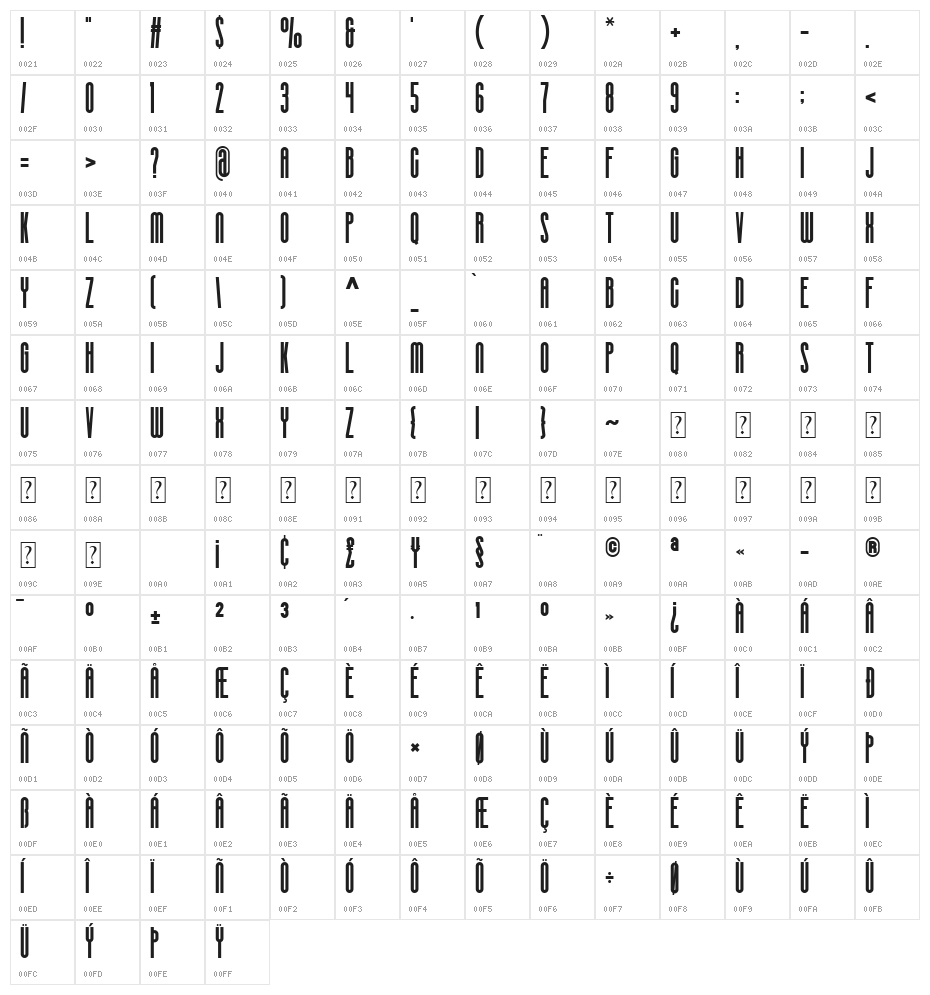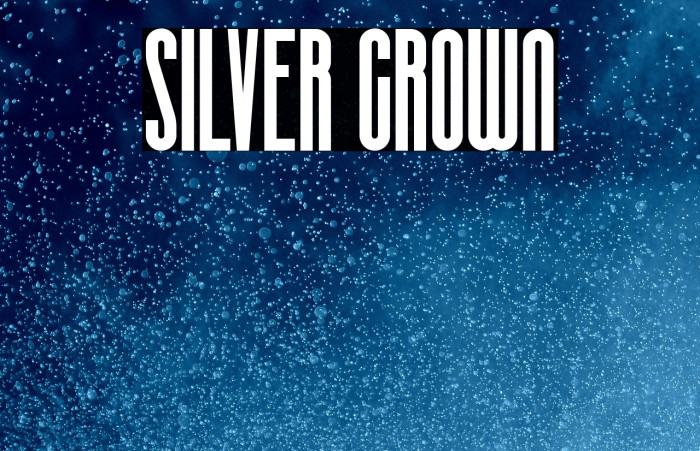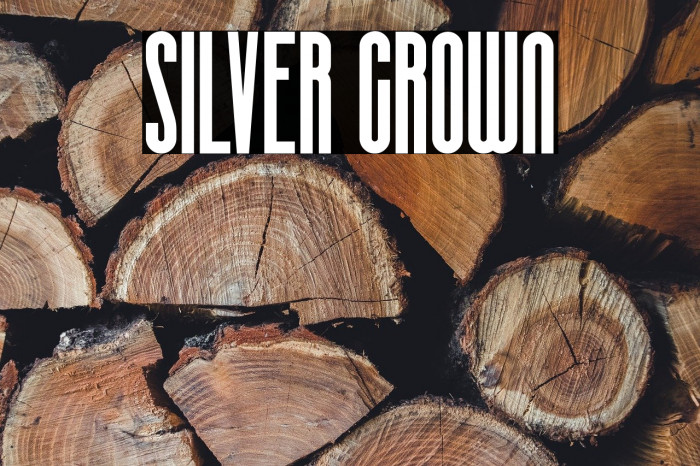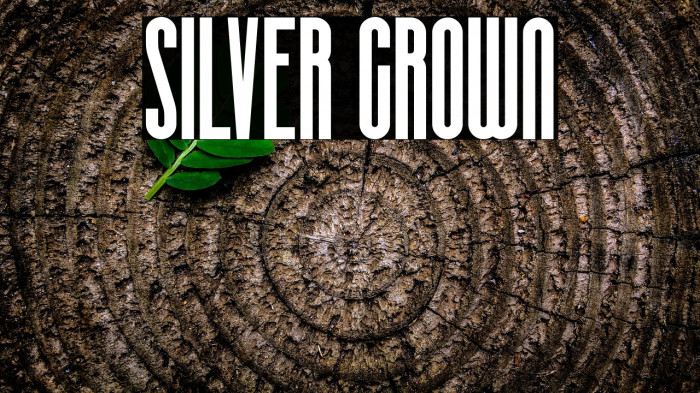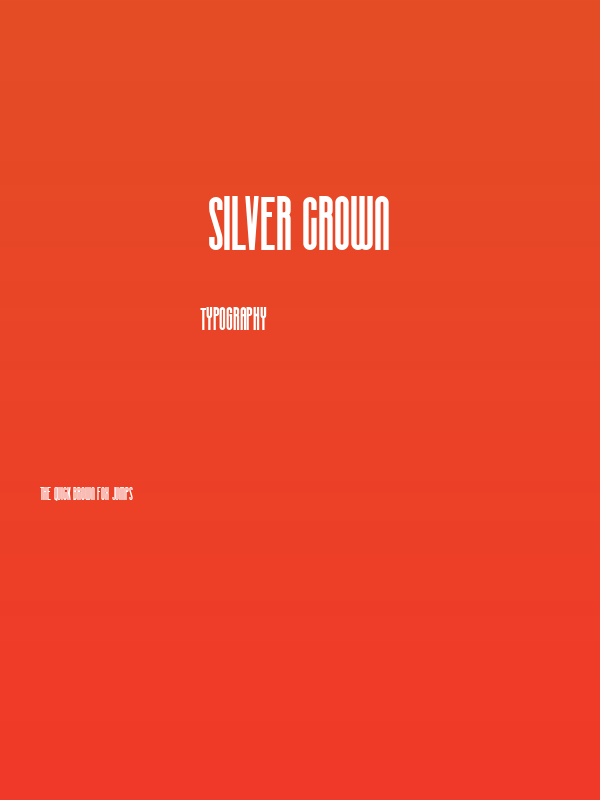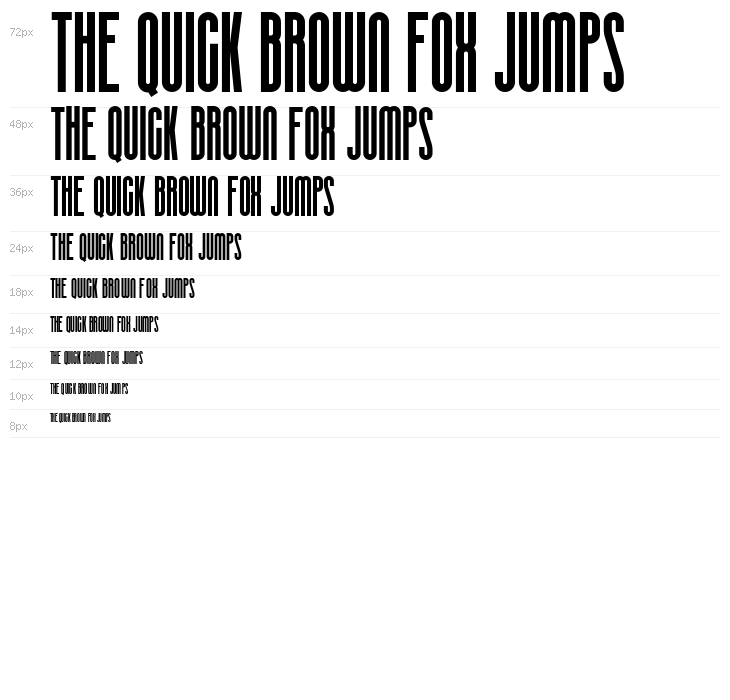
SILVER CROWN Font
SILVER CROWN Description
This font features a bold and striking design with tall, narrow characters that convey a sense of modernity and sophistication. The uppercase letters are particularly elongated, creating a dramatic and impactful appearance. The numbers and special characters maintain the same boldness and height, ensuring consistency across all elements. The font's vertical emphasis and clean lines make it suitable for attention-grabbing headlines and titles. Its unique style is both contemporary and versatile, making it ideal for a variety of design projects.
| Proposed Projects | Ideal for use in posters, headlines, branding, and advertising where a strong visual impact is desired. |